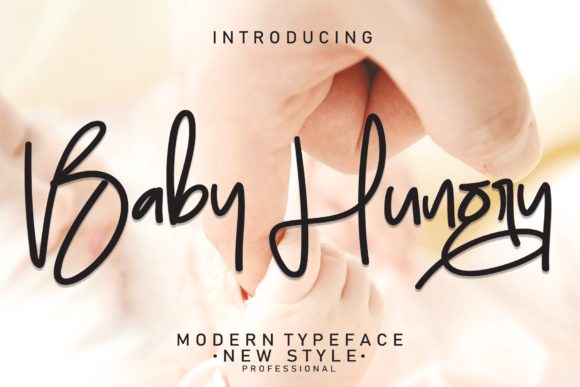
Unleash your creativity with Baby Hungry Font, the captivating script font family that brings a dash of whimsy and charm to your digital designs. Each letter, meticulously crafted by Roronoa zoro.S.P.D., dances across the screen, evoking the free-flowing elegance of handwritten strokes. Whether you're designing a captivating website, crafting a heartfelt wedding invitation, or elevating your social media presence, Baby Hungry Font empowers you to make a lasting impression. Let its enchanting curves and playful spirit infuse your creations with a touch of magic. Dive into a world of endless possibilities and let Baby Hungry Font guide you towards design excellence.